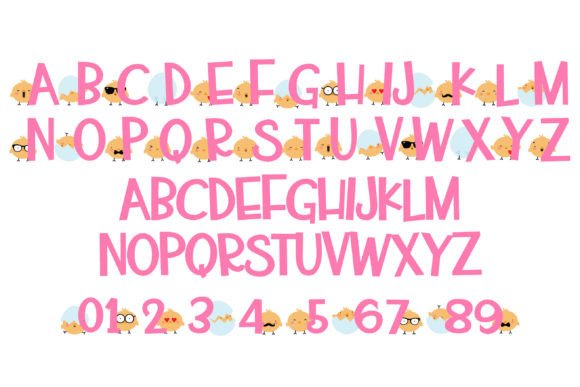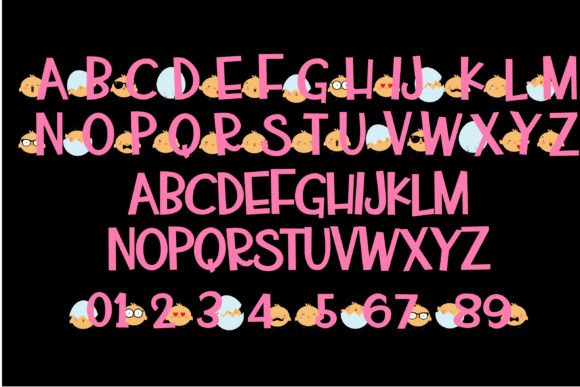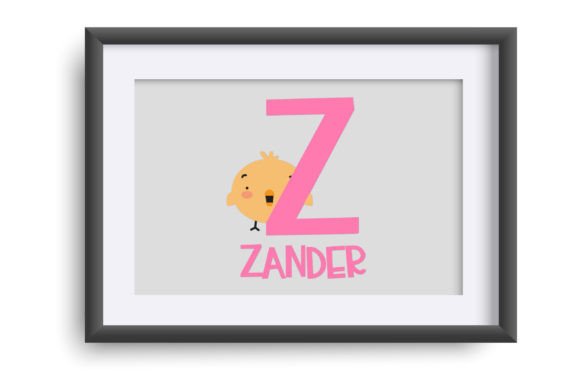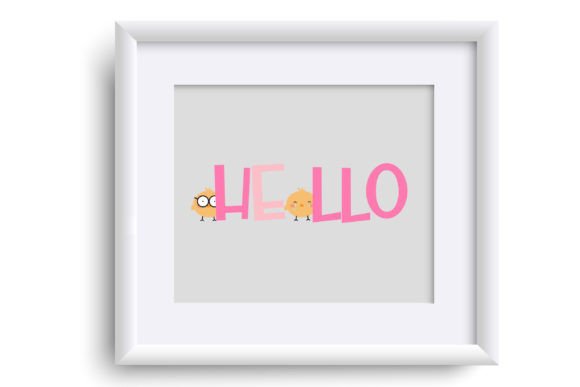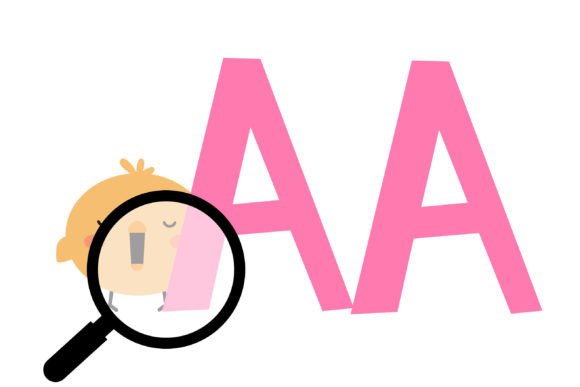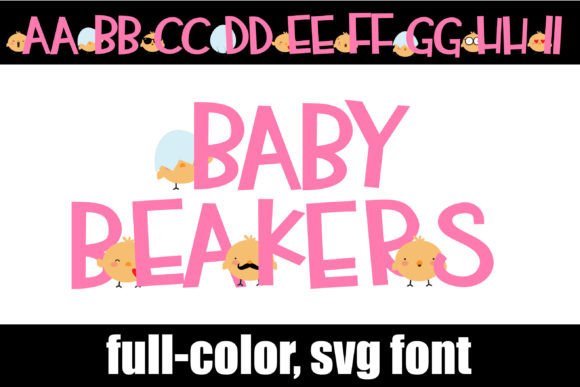
Baby Beakers Font: A Playful and Vibrant Color Font for Your Designs
Are you looking for a font that can add a touch of playfulness and vibrancy to your designs? Look no further than the Baby Beakers Font! This font is a perfect choice for designers and crafters who want to create designs that exude a lively and quirky vibe. In this article, we’ll take a closer look at the Baby Beakers Font, its features, and how you can use it to elevate your designs.
What is Baby Beakers Font?
Baby Beakers Font is a playful and vibrant color font that is designed to capture people’s attention. Every letter in this font is uniquely crafted with lively shapes and an eye-catching blend of bright and cheerful colors. The font is perfect for creating designs that require a fun and quirky touch, such as children’s books, party invitations, and social media graphics.
Key Features of Baby Beakers Font
The Baby Beakers Font has several key features that make it a great choice for designers and crafters. Some of its notable features include:
- Playful and Vibrant Design: The font features a playful and vibrant design that is sure to capture people’s attention.
- Unique Lettering: Every letter in the font is uniquely crafted with lively shapes and an eye-catching blend of bright and cheerful colors.
- PUA Encoded: The font is PUA encoded, meaning that you can access all delightful glyphs and swashes effortlessly.
- Multicolored: The font is a multicolored font, making it perfect for creating designs that require a pop of color.
How to Use Baby Beakers Font
The Baby Beakers Font is easy to use and can be incorporated into a variety of designs. Here are some ideas on how to use the font:
- Children’s Books: The font is perfect for creating children’s books that require a playful and fun touch.
- Party Invitations: Use the font to create party invitations that are sure to capture the attention of your guests.
- Social Media Graphics: The font is perfect for creating social media graphics that require a fun and quirky touch.
- Crafting Projects: The font can be used for a variety of crafting projects, such as card making, scrapbooking, and more.
Tips for Using Baby Beakers Font
Here are some tips for using the Baby Beakers Font:
- Use it Sparingly: While the font is playful and fun, it can be overwhelming if used excessively. Use it sparingly to add a touch of playfulness to your designs.
- Pair it with Other Fonts: The font can be paired with other fonts to create a unique and interesting design.
- Experiment with Colors: The font is a multicolored font, so experiment with different colors to find the perfect combination for your design.
In conclusion, the Baby Beakers Font is a playful and vibrant color font that is perfect for designers and crafters who want to add a touch of playfulness to their designs. With its unique lettering, PUA encoding, and multicolored design, it’s a great choice for creating designs that exude a lively and quirky vibe. By following the tips outlined in this article, you can use the Baby Beakers Font to elevate your designs and capture people’s attention.